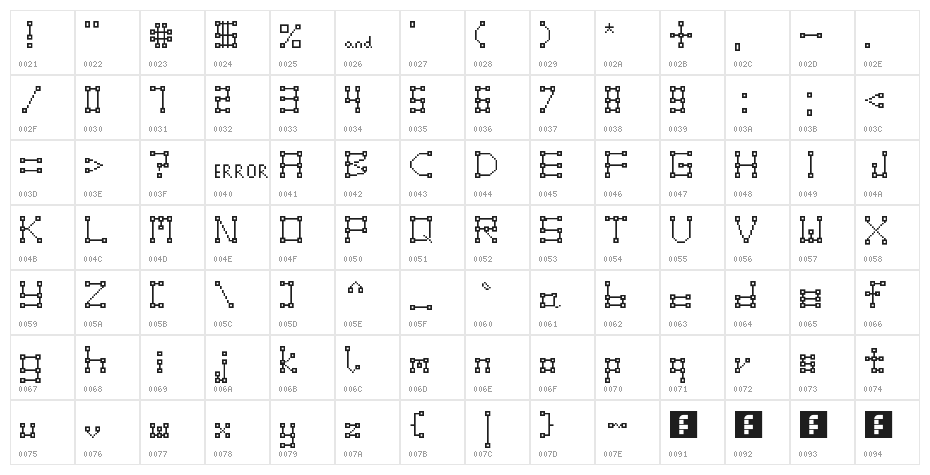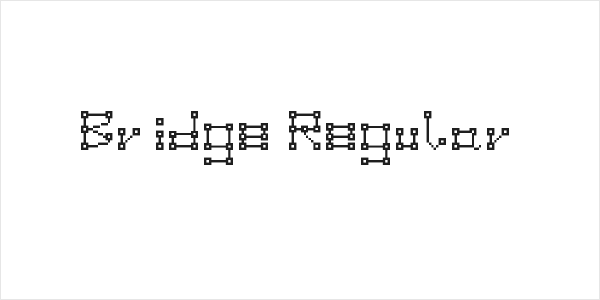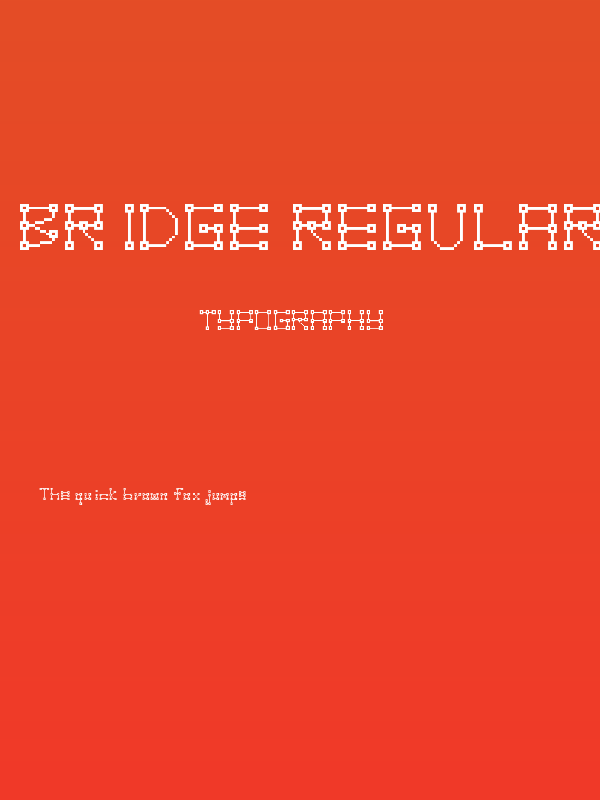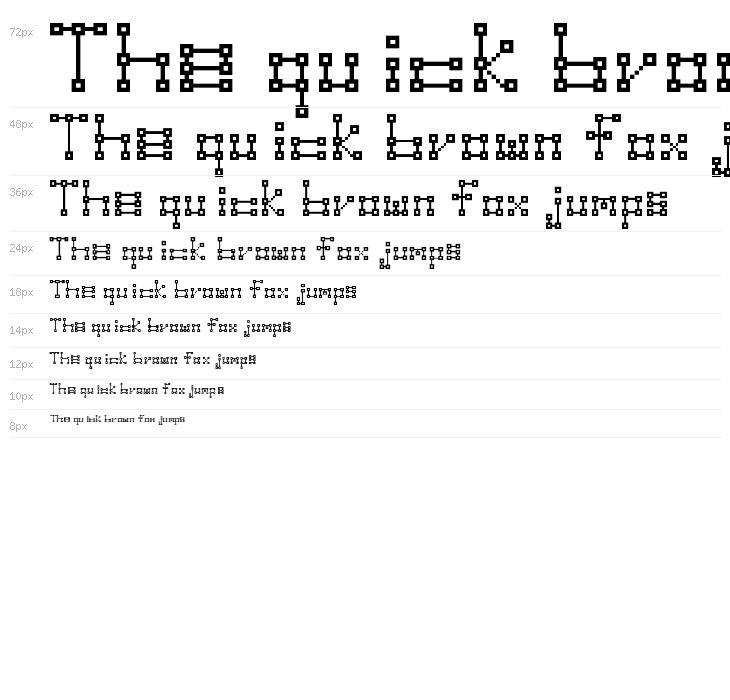
Bridge Regular Font
✎ Pixel
| 使用场景 | Logos, Headlines, Digital Art |
| 推荐项目 | Ideal for digital art projects, tech-themed designs, or modern branding that seeks a futuristic aesthetic. |